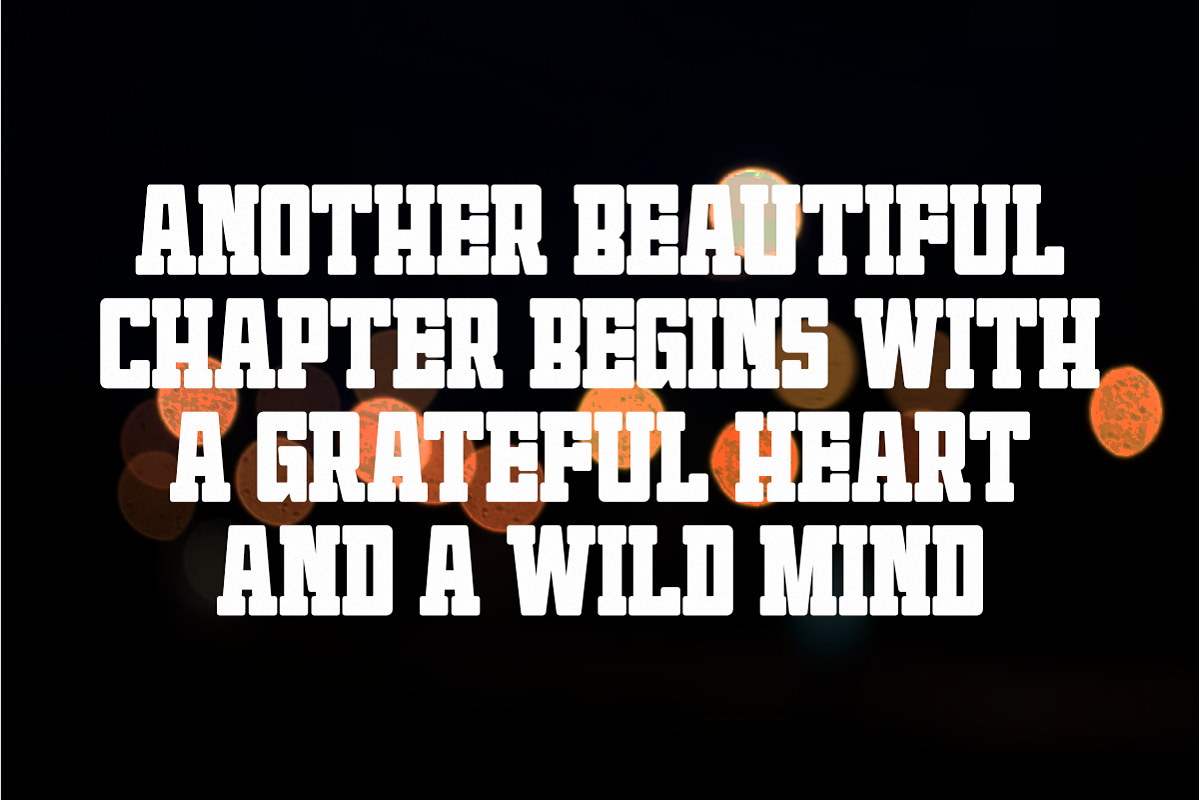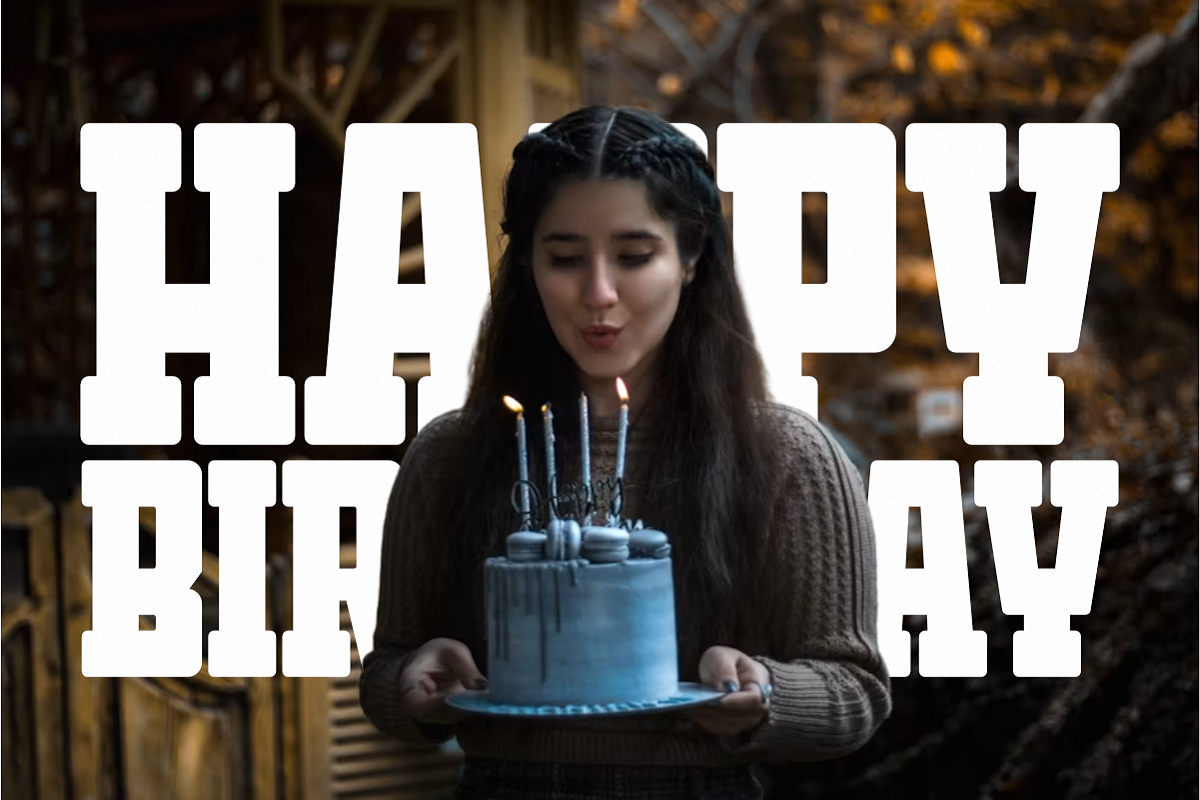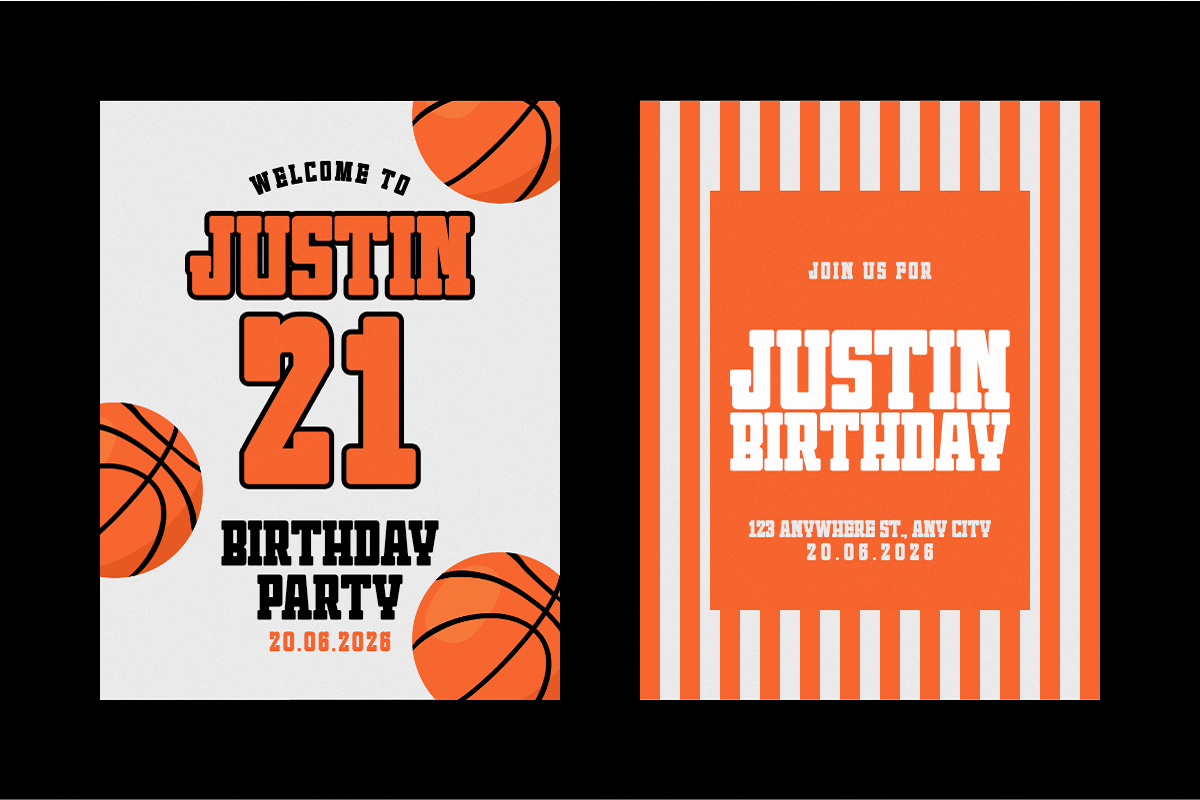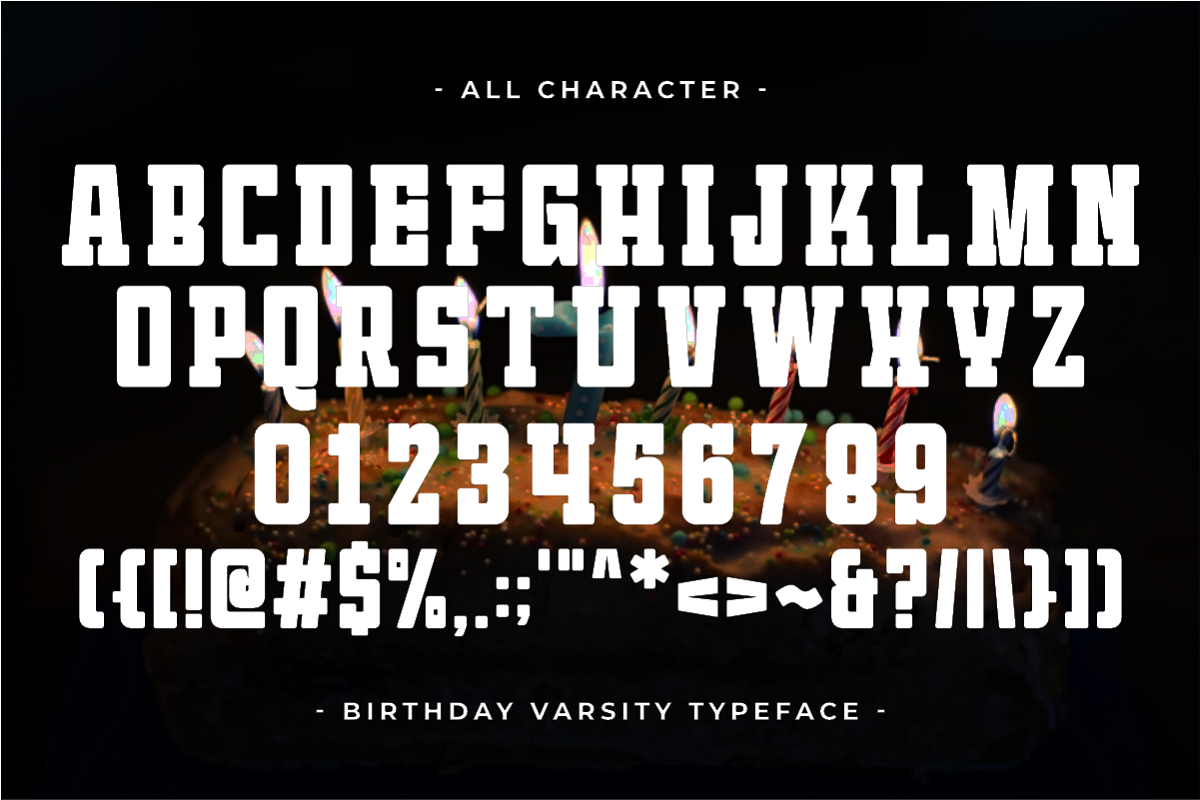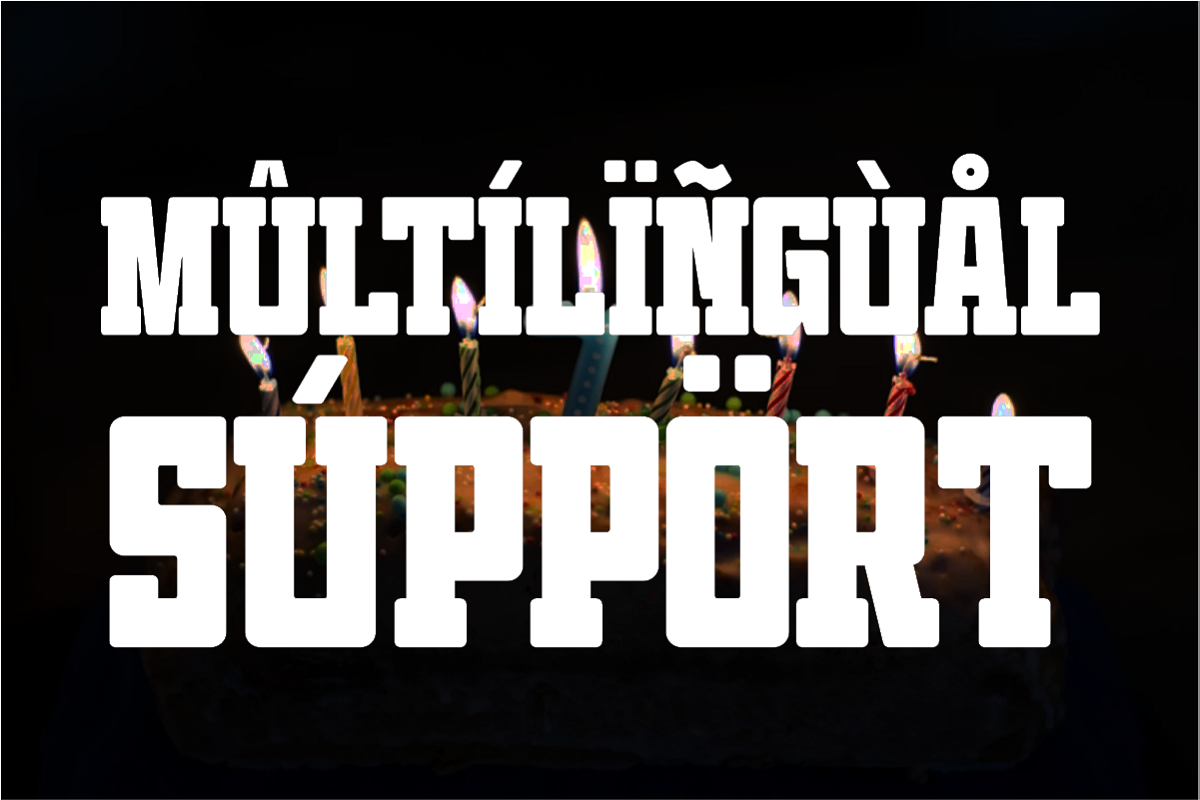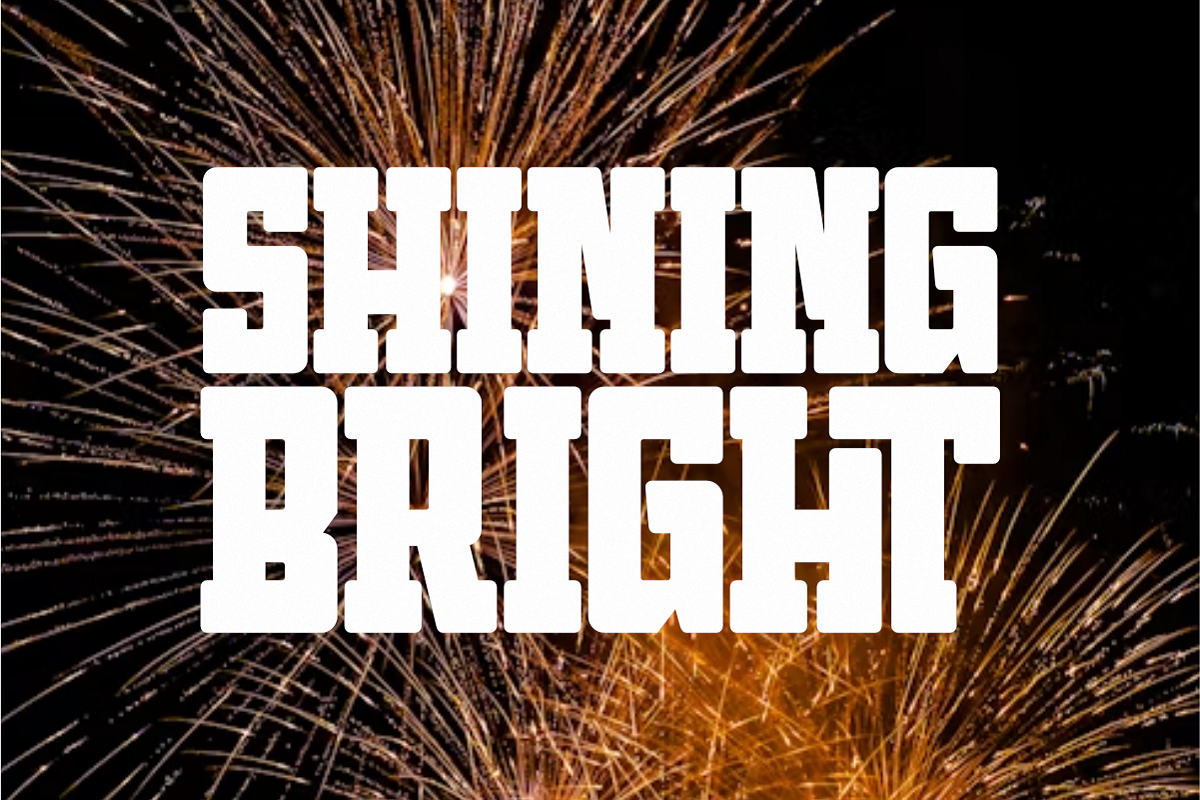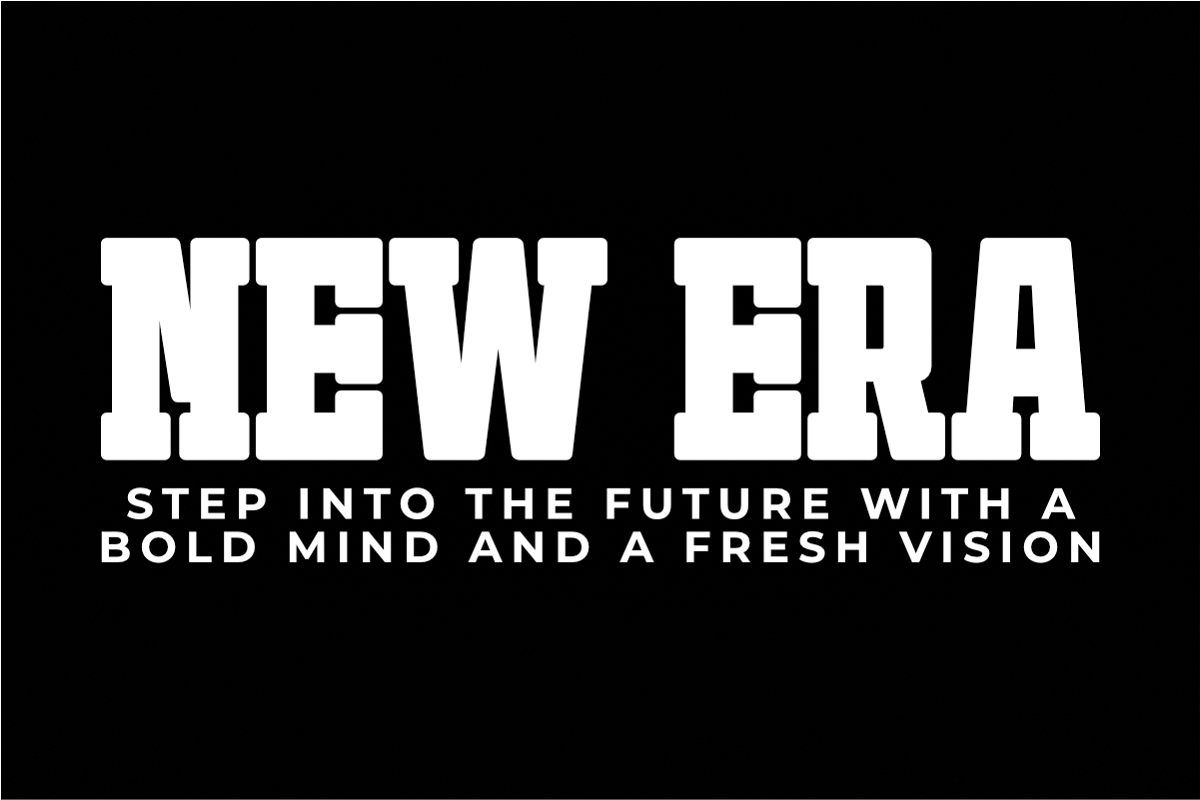
Birthday Varsity - Condensed Slab
Birthday Varsity is a festive and high-impact Condensed Slab Serif font that brilliantly merges classic athletic heritage with a celebratory party vibe. Designed with strong, geometric block serifs and a tall, space-saving condensed typeface structure, this all-caps font is built to stand out. It is the perfect choice for birthday branding, sports-themed party invitations, custom anniversary apparel, and collegiate team logos. Its bold visual presence and energetic layout ensure maximum impact on event banners, merchandise, streetwear lines, and high-visibility digital headlines.